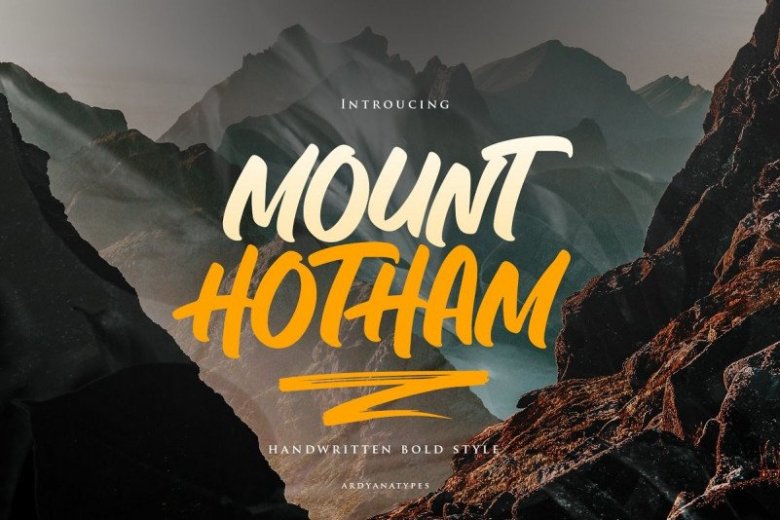
Hotham Script Font
Hotham Font is a dynamic and energetic brush script . It is suitable for designs that needs a script with a contemporary feel. You can use it on logos, t-shirts, packages, as a title font.